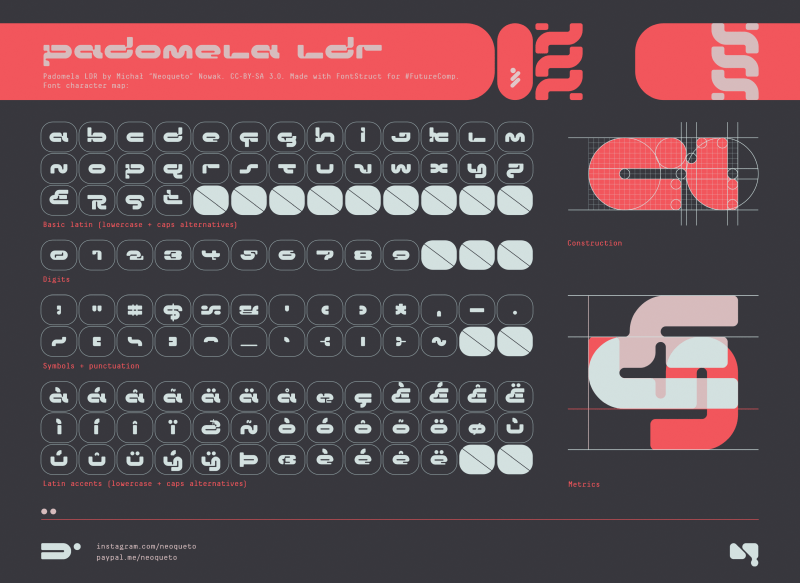
Futuristic, sci-fi, cyberpunk typeface created for FontStruct's FutureComp 2020. Made by Michał "Neoqueto" Nowak. 2020. Distributed under Creative Commons Attribution Share-Alike 3.0 license (CC-BY-SA 3.0). You can use this font anywhere as long as you give proper credit. Contact at neoqueto@o2.pl. Donations welcome at http://paypal.me/neoqueto Follow me at: http://instagram.com/neoqueto Thank you for having a look! |